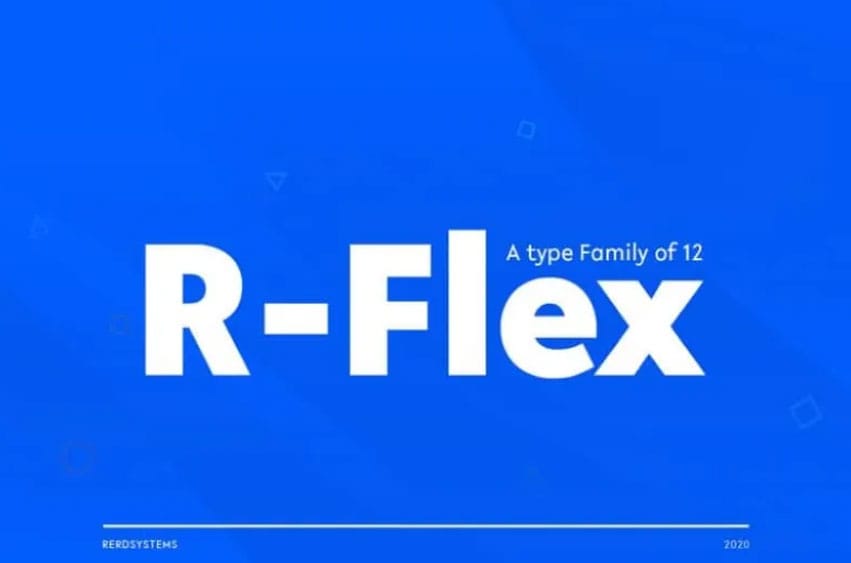
R-Flex Font is a new sans serif font that has some geometric and grotesque features. It is divided into 12 weights, with 6 straights and the matching italics. Each weight consists of extended language support (+ Cyrillic), fractions, tabular figures, ligatures and more.
It has been made in such a way that it is very open to use the powerful type features. Just the right for graphic design and display. It could be smooth as a web, signage, corporate and editorial design.